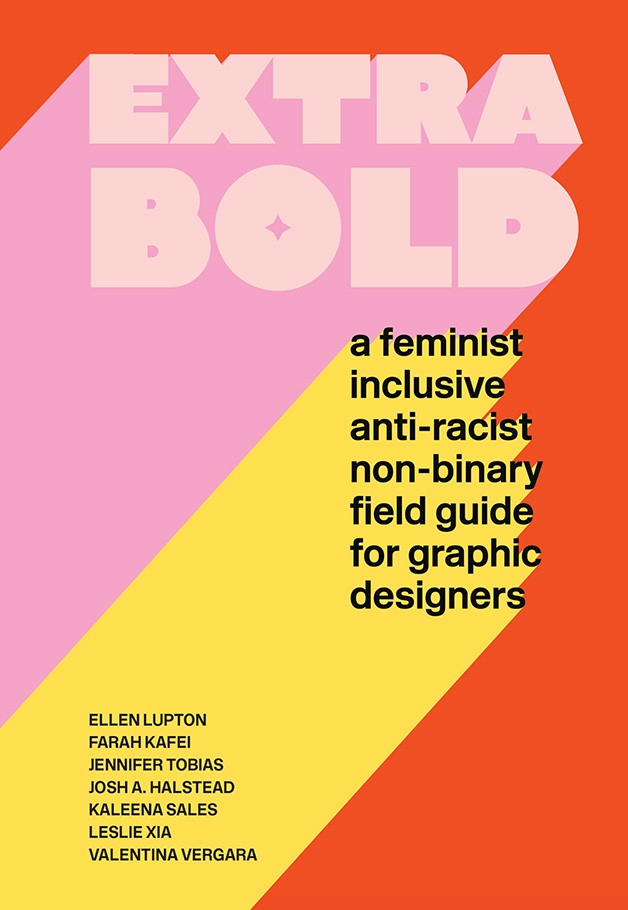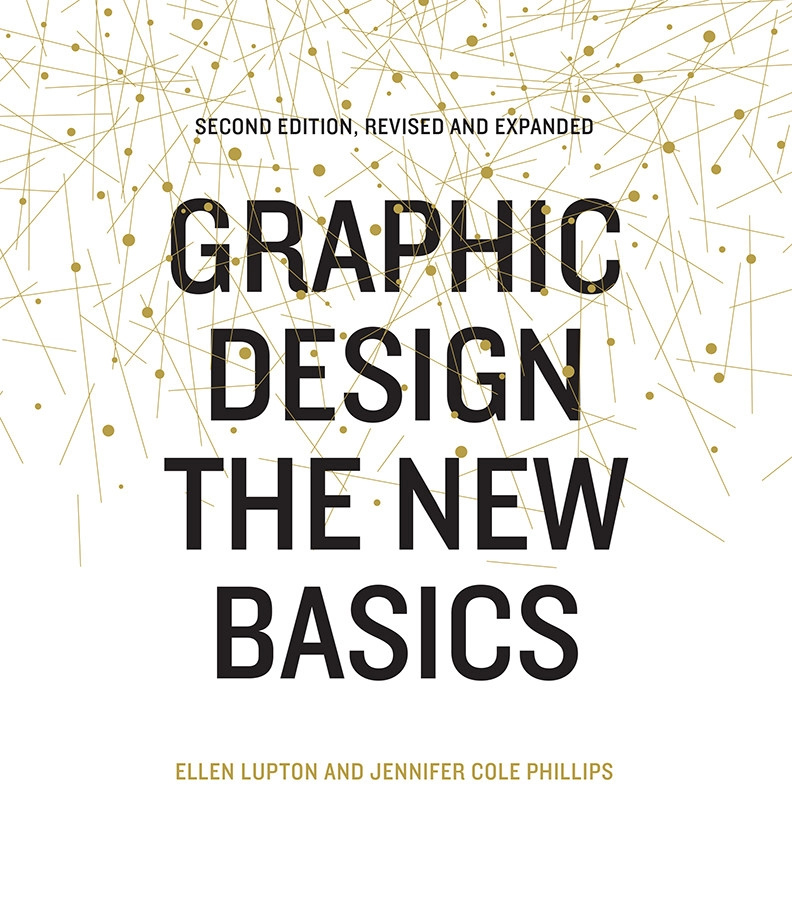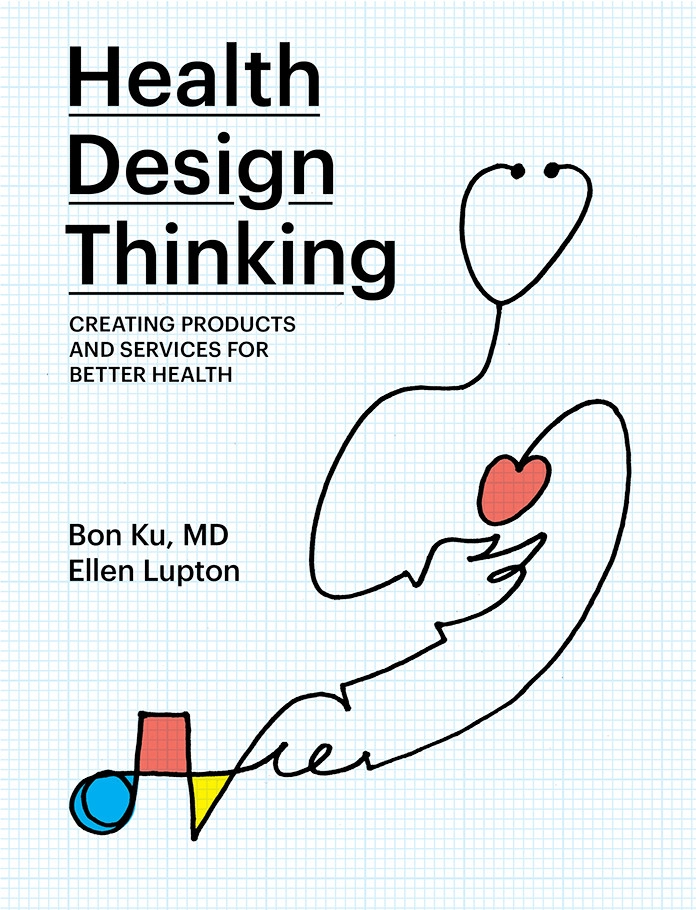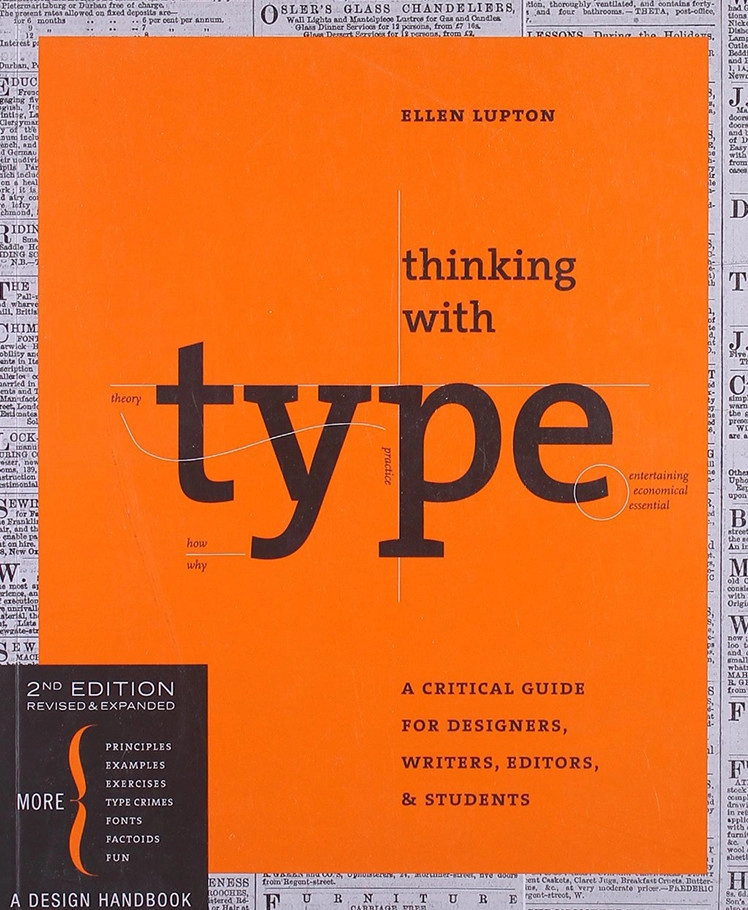
Creative Characters Ep. 17. Ellen Lupton.
“ Part of my mission, as a missionary of typography, is to keep people aware that typography isn't just fonts. Typography is what we do with it. ”
Ellen Lupton.
This week, on Creative Characters, Monotype’s own Brand Designer, Marie Boulanger, author of XX, XY, a book which investigates the relationship between letters and gender stereotypes and how that affects the design world, talks with Ellen Lupton, writer, curator, educator, and designer. Lupton most recently published Extra Bold: A Feminist, Inclusive, Anti-racist, Nonbinary Field Guide for Graphic Designers. You may also know her from other books such as, Thinking with Type; Graphic Design: The New Basics; or Health Design Thinking: Creating Products and Services for Better Health.
Ellen actually set out to be a painter, but fell in love with the abstract and minimal design language of type while studying painting at the Cooper Union in the early 1980s. At that time, type design did not have the mainstream cool factory it has today. Ellen felt that pursuing typography was more akin to “entering a secret society.”
“I fell in love with relationship between the austere systematic anti-individualist typography world,” Ellen says, “the world of conceptual art that had been critiquing the authorial originality of the painter in favor of grids and lines like Sol LeWitt. I just loved the connection between that very austere part of the art world and this language of graphic design.”
Now the Betty Cooke and William O. Steinmetz Design Chair at the Maryland Institute College of Art (MICA) in Baltimore, Ellen and Marie discuss the balance between theory and practice, thinking and making. Learning from her graduate students in the BFA program at MICA, Ellen notes that “really the best mentorship is lateral. It comes from people you have a relationship of equality with.”
This perspective is what makes Ellen the perfect person to write a book like Extra Bold. Ellen explores the impact that creative gatekeeping, long practiced (both conscious and unconsciously) in design circles, has had on designers of color, women, and other communities. When working on Extra Bold, Ellen collaborated with Leslie Xia and many other colleagues that helped deepen her understanding of the racial, gender, and geographic inequalities in design and in turn shaped her habits and creative practices.
“I went through a period while I was writing the book of only buying typefaces designed by women… If you want to expose yourself to this other body of work, you [must] make a conscious decision to actively seek that out and then celebrate it, and tweet it, show it, use it, and use the fonts that you acquire in that way. Or you [only seek out] fonts created in South America instead of Europe,” Ellen says. “There’s a huge and vital industry in other countries that doesn’t get seen as much. So [it’s important to] make that conscious effort in your own practice, [and it can be] really illuminating.”
In the same vein, Ellen is now working on a revised third edition of her book, Thinking with Type, originally published in 2010, with a focus on being more inclusive and less monocultural. Due to release sometime in 2023, it will reflect some meaningful changes within type world over the last decade and highlight ways it has become more open and inclusive.